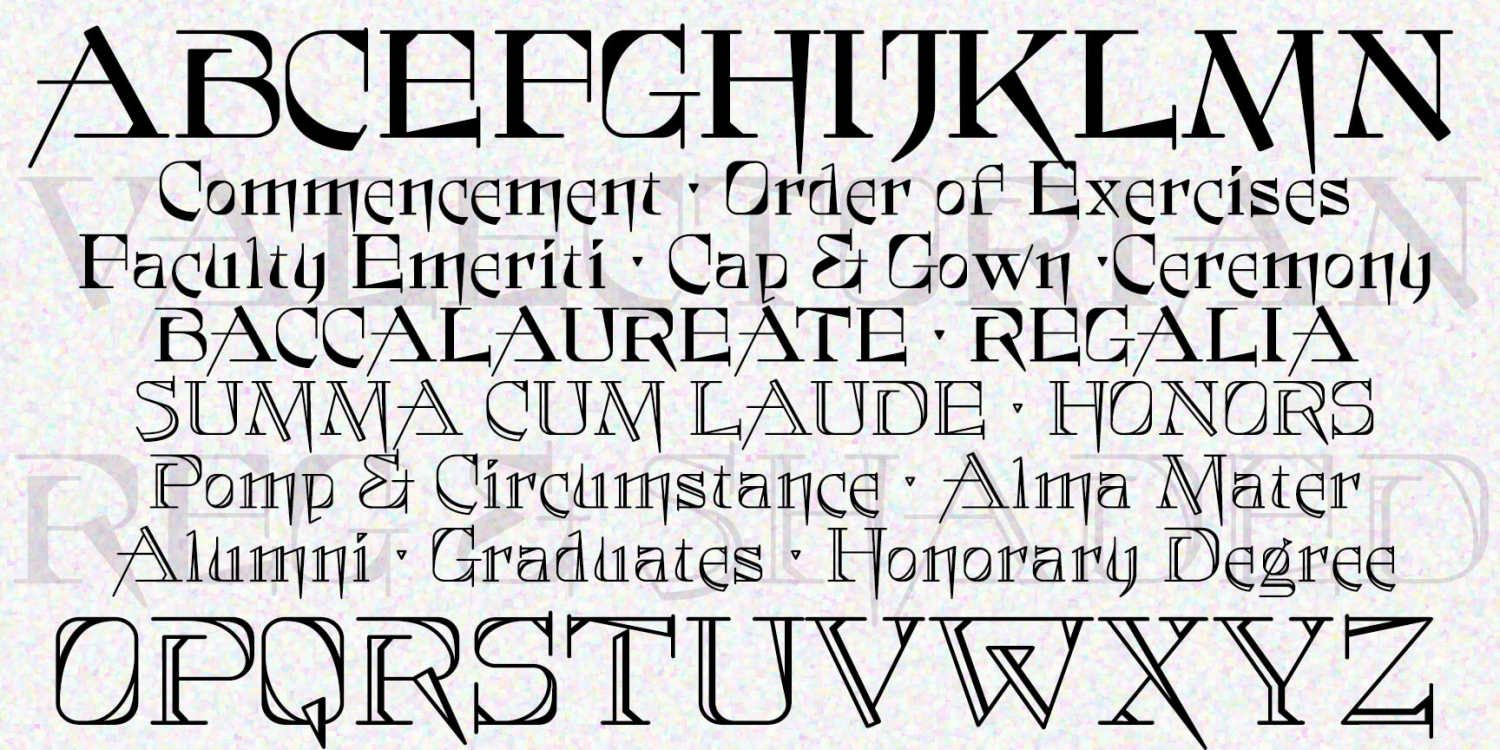
Valedictorian
VALEDICTORIAN is both quirky and formal. The unusual letterforms give it a modern touch, while also conveying elegance and tradition. Two varieties, solid and shaded.
The Valedictorian font family includes 347 glyphs.